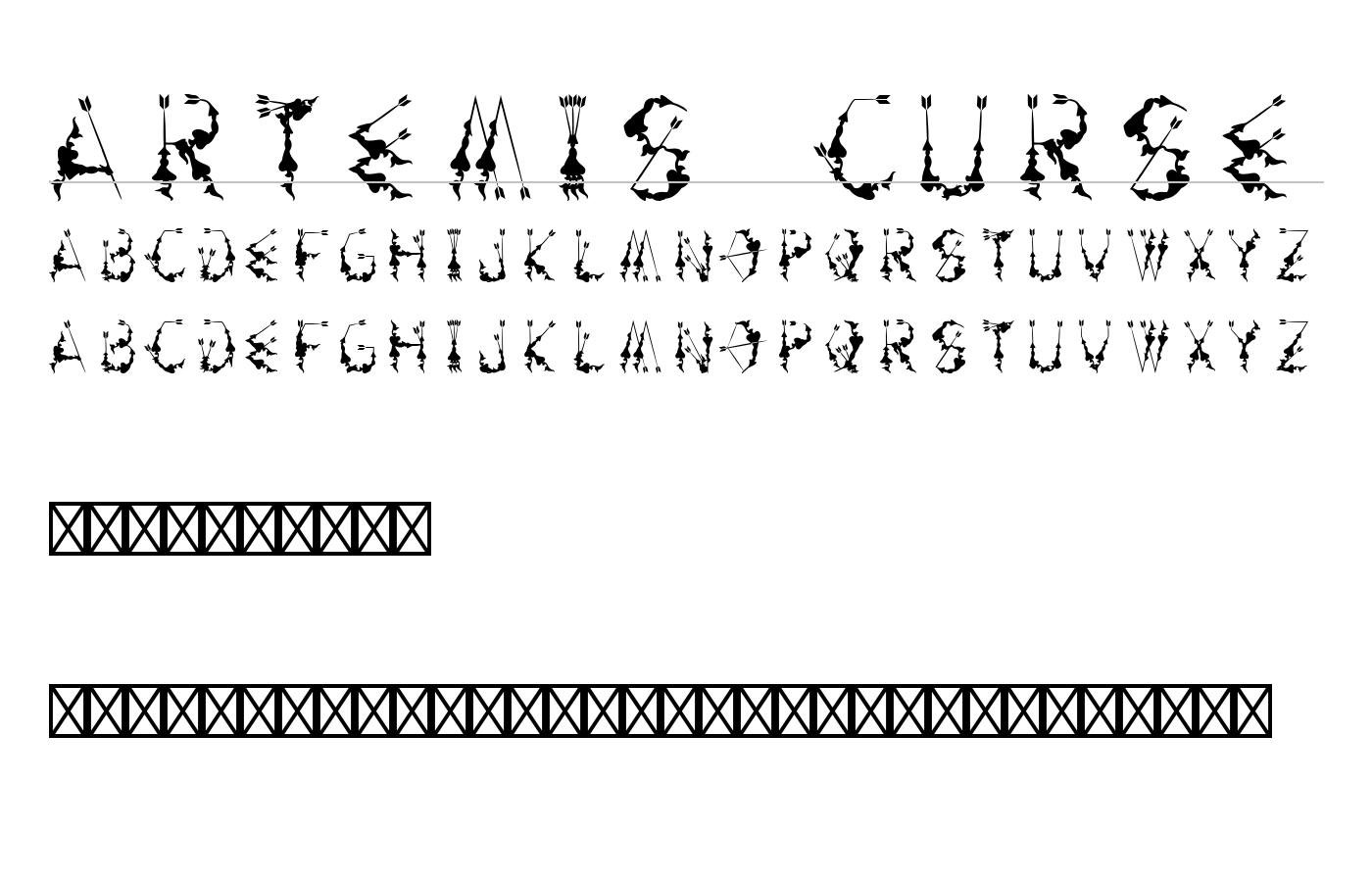
Artemis Curse is a decorative, serif-inspired display font characterized by its intricate, arrow-themed details that give each letter a sharp, slightly gothic feel. Its uneven stroke widths and ornamental shapes create a mysterious and dramatic atmosphere, making it ideal for fantasy, horror, or myth-inspired branding and headlines. This font excels in designs needing a bold, eye-catching statement rather than long text, perfect for posters, logos, or themed event invitations.
Artemis Curse Font
About Artemis Curse Font
| Font family | Artemis Curse Font |
| Designer | AshLumiere |